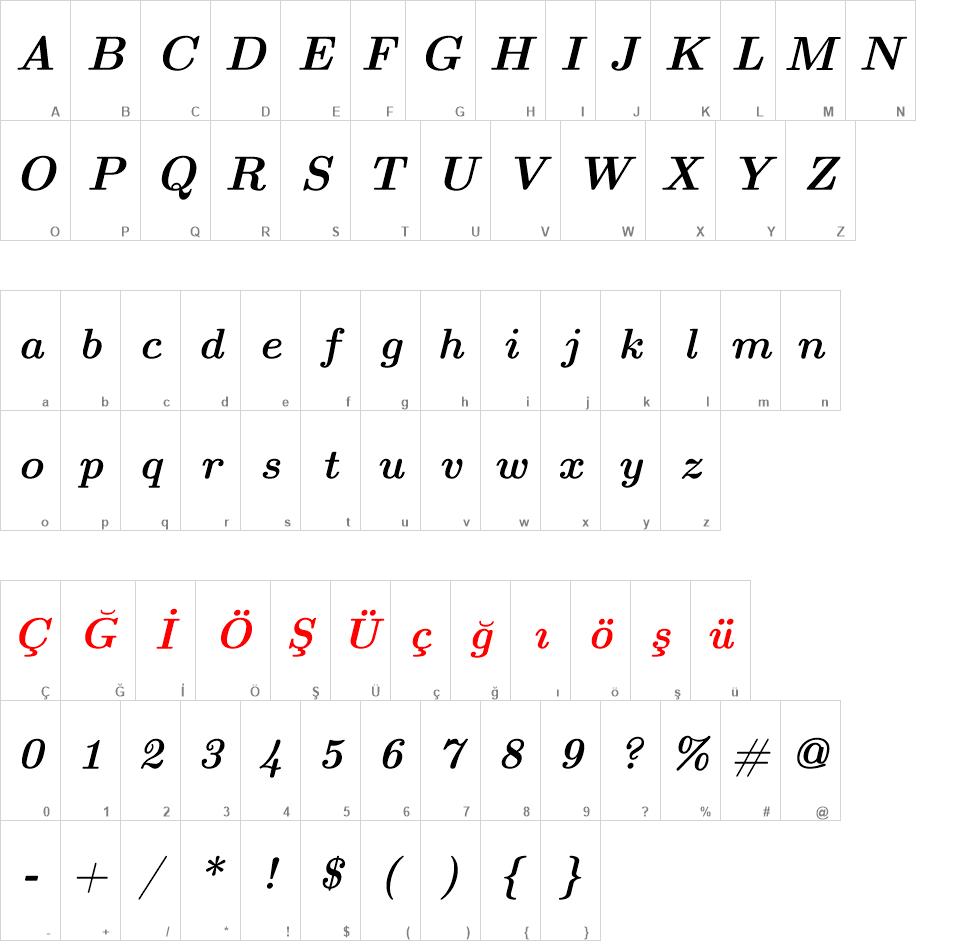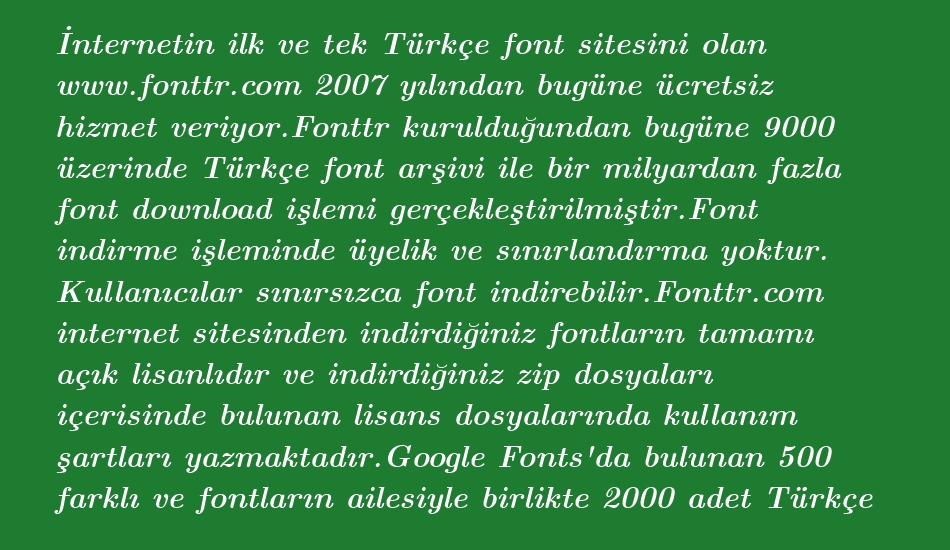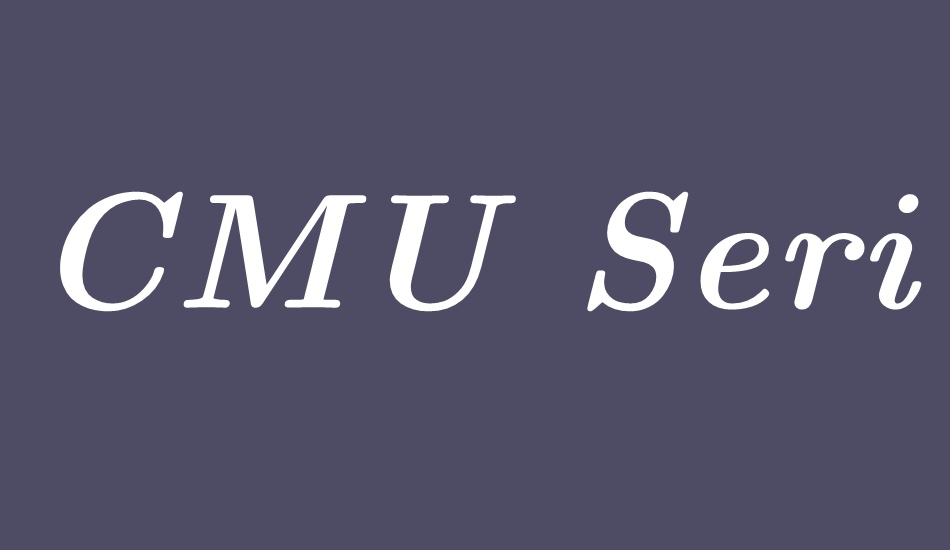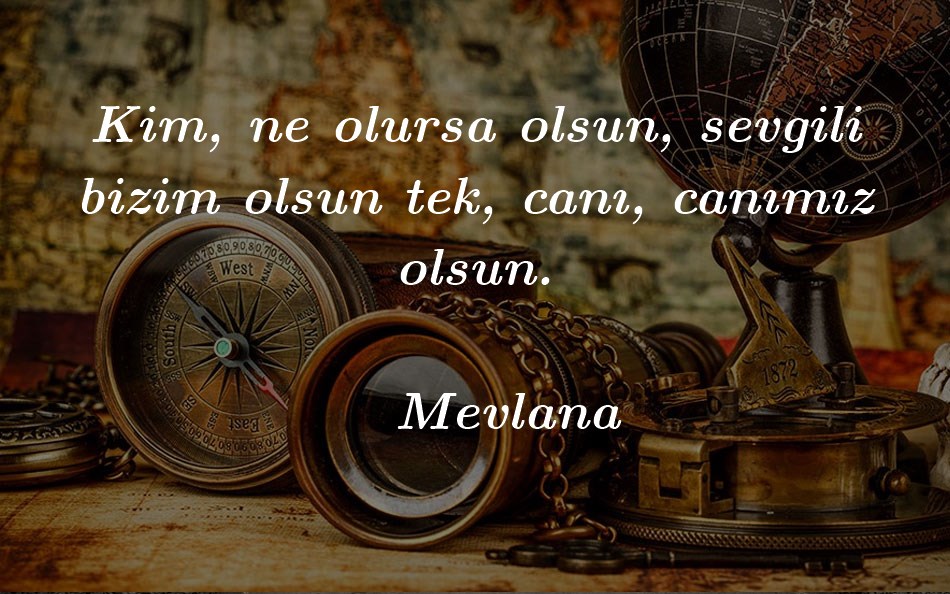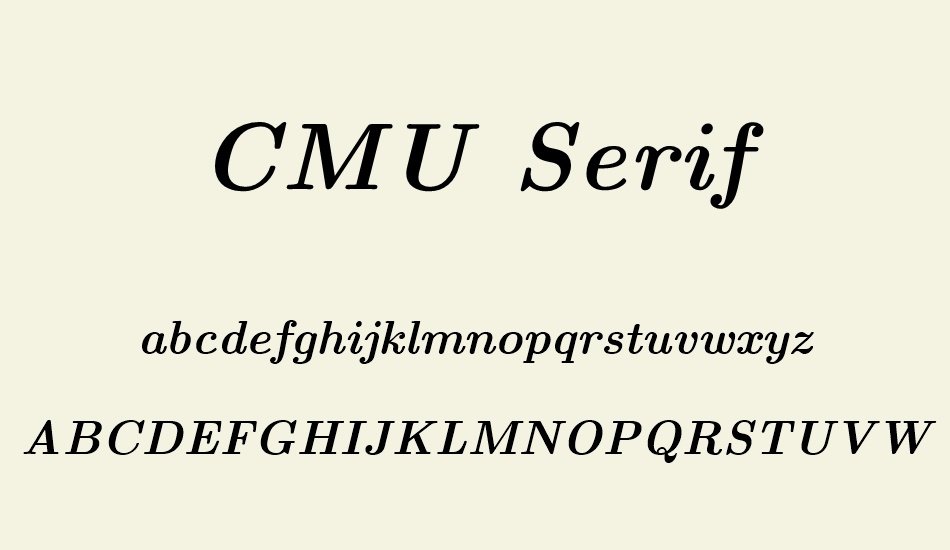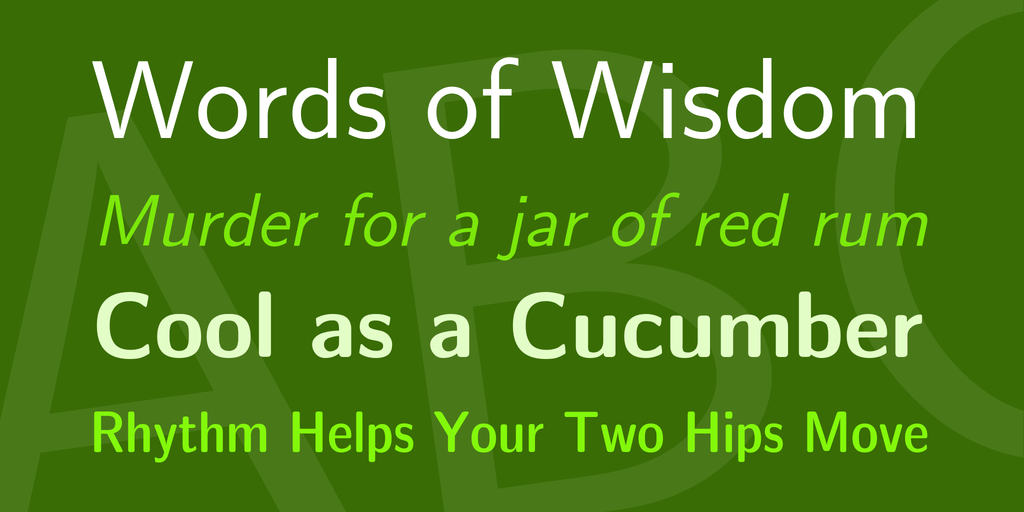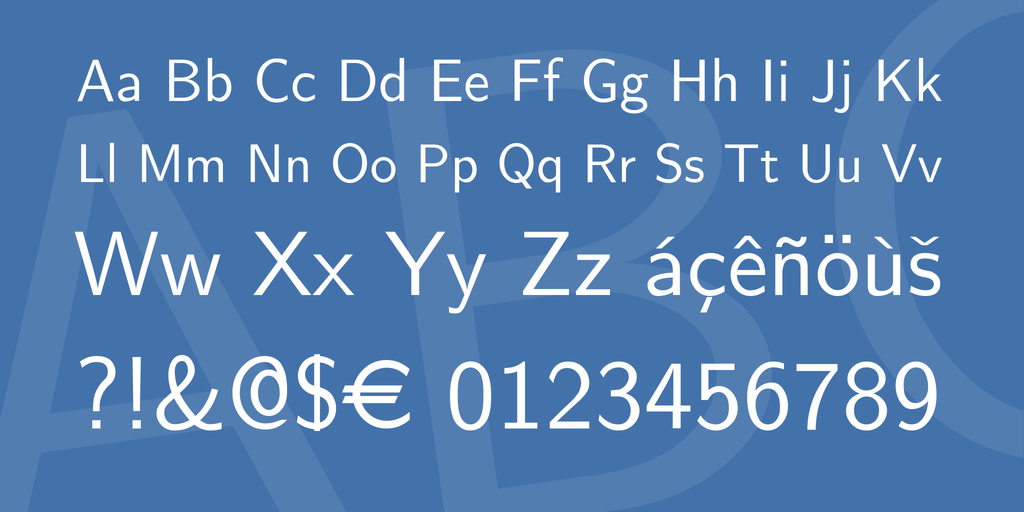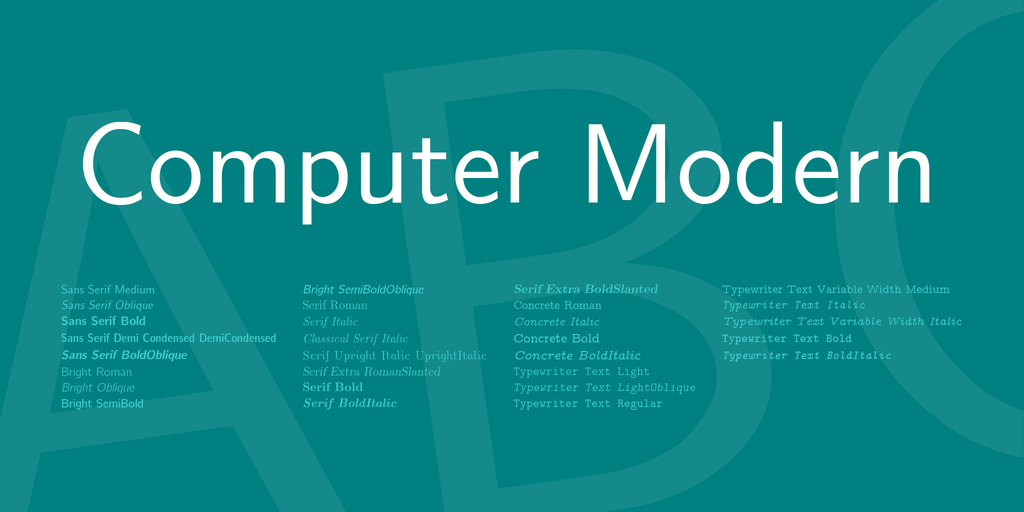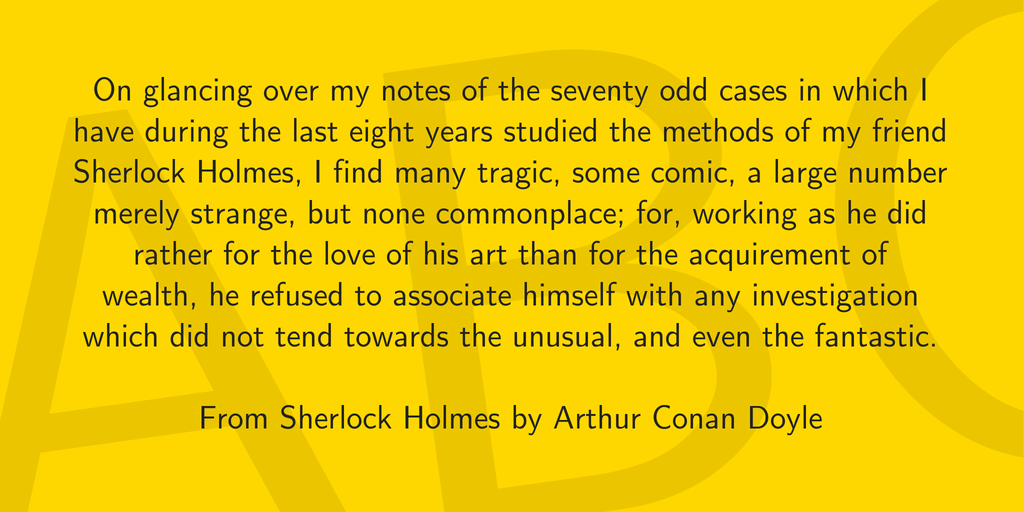
Computer Modern font
Computer Modern Font Ailesi
From Wikipedia: Computer Modern is the original family of typefaces used by the typesetting program TeX. It was created by Donald Knuth with his Metafont program, and was most recently updated in 1992. Computer Modern, or variants of it, remains very widely used in scientific publishing, especially in disciplines that make frequent use of mathematical notation.
As implied by the name, Computer Modern is a 'Didone', or modern serif font, a genre that emerged in the late 18th century as a contrast to the more organic designs that preceded them. Didone fonts have high contrast between thick and thin elements, and their axis of "stress" or thickening is perfectly vertical. Computer Modern was specifically based on the 10 point size of the American Lanston Monotype Company's Modern Extended 8A, part of a family Monotype originally released in 1896. This was one of many modern faces issued by typefounders and Monotype around this period, and the standard style for body text printing in the late nineteenth century.
In creating the TeX publishing system, Knuth was influenced by the history of mathematics and a desire to achieve the "classic style" of books printed in metal type. Modern faces were used extensively for printing mathematics, especially before Times New Roman became popular for mathematics printing from the 1950s.
The most unusual characteristic of Computer Modern, however, is the fact that it is a complete type family designed with Knuth's Metafont system, one of the few typefaces developed in this way. The Computer Modern source files are governed by 62 distinct parameters, controlling the widths and heights of various elements, the presence of serifs or old-style numerals, whether dots such as the dot on the "i" are square or rounded, and the degree of "superness" in the bowls of lowercase letters such as "g" and "o". This allows Metafont designs to be processed in unusual ways; Knuth has shown effects such as morphing in demonstrations, where one font slowly transitions into another over the course of a text. While it attracted attention for the concept, Metafont has been used by few other font designers; digital font designer Jonathan Hoefler commented that "Knuth's idea that letters start with skeletal forms is flawed" and Knuth commented "asking an artist to become enough of a mathematician to understand how to write a font with 60 parameters is too much."
CMU Serif font